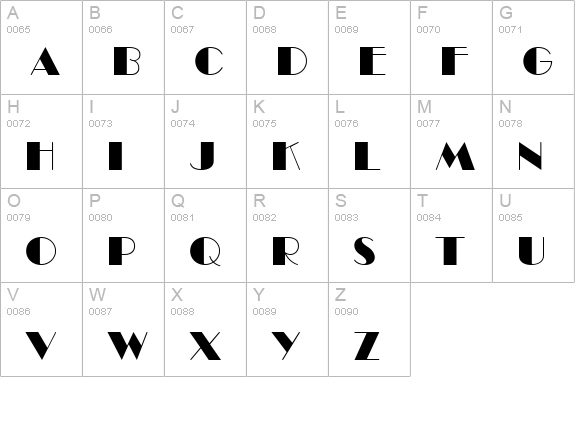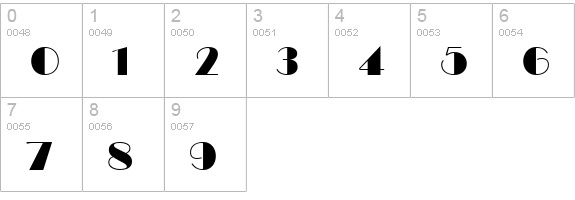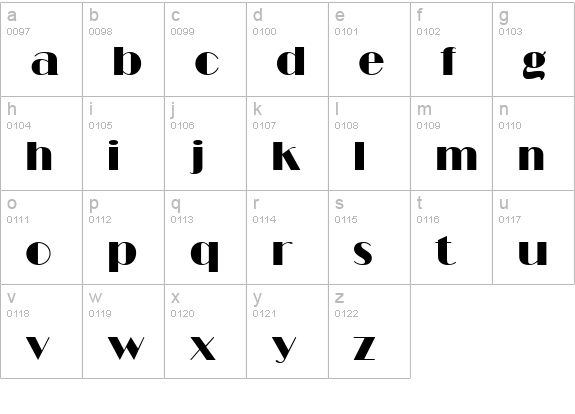
Barbe Display SSi font is a stunning display typeface that exudes elegance and sophistication. With its bold and intricate letterforms, this font is perfect for making a statement in your designs. Whether you're working on branding, advertising, or any creative project, Barbe Display SSi font will elevate your work to the next level. The best part? Barbe Display SSi font is completely free to download at FontsMarket.com. This means you can access this beautiful typeface without any cost, making it a valuable addition to your font collection. Don't miss out on the opportunity to enhance your designs with the timeless beauty of Barbe Display SSi font - download it today and start creating stunning visuals that will captivate your audience.